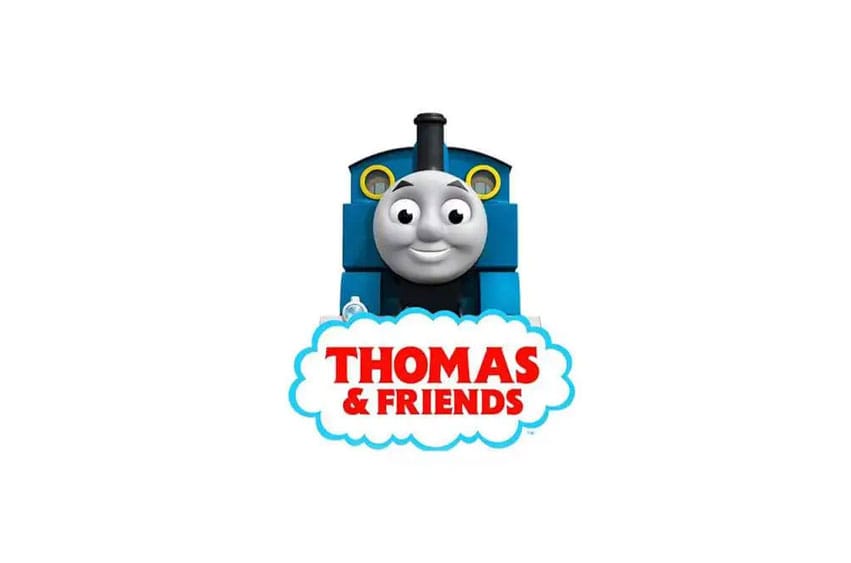
Thomas and Friends Font As an animated television series for children, Thomas and Friends first debuted on the ITV network in England in 1984, to great acclaim by viewers. Following its successful run there, Shining Time Station brought it over to America, airing it since 1989 for 22 seasons with 538 episodes total.
Each year, this number has increased, meaning all children and teenagers in England and the U.S. need to know about it; due to that fact, this cartoon has amassed an enormous fan base. Therefore, I present Flange BQ Bold Font which was designed by Leslie Usherwood for creating its logo.
Thomas and Friends Font Preview